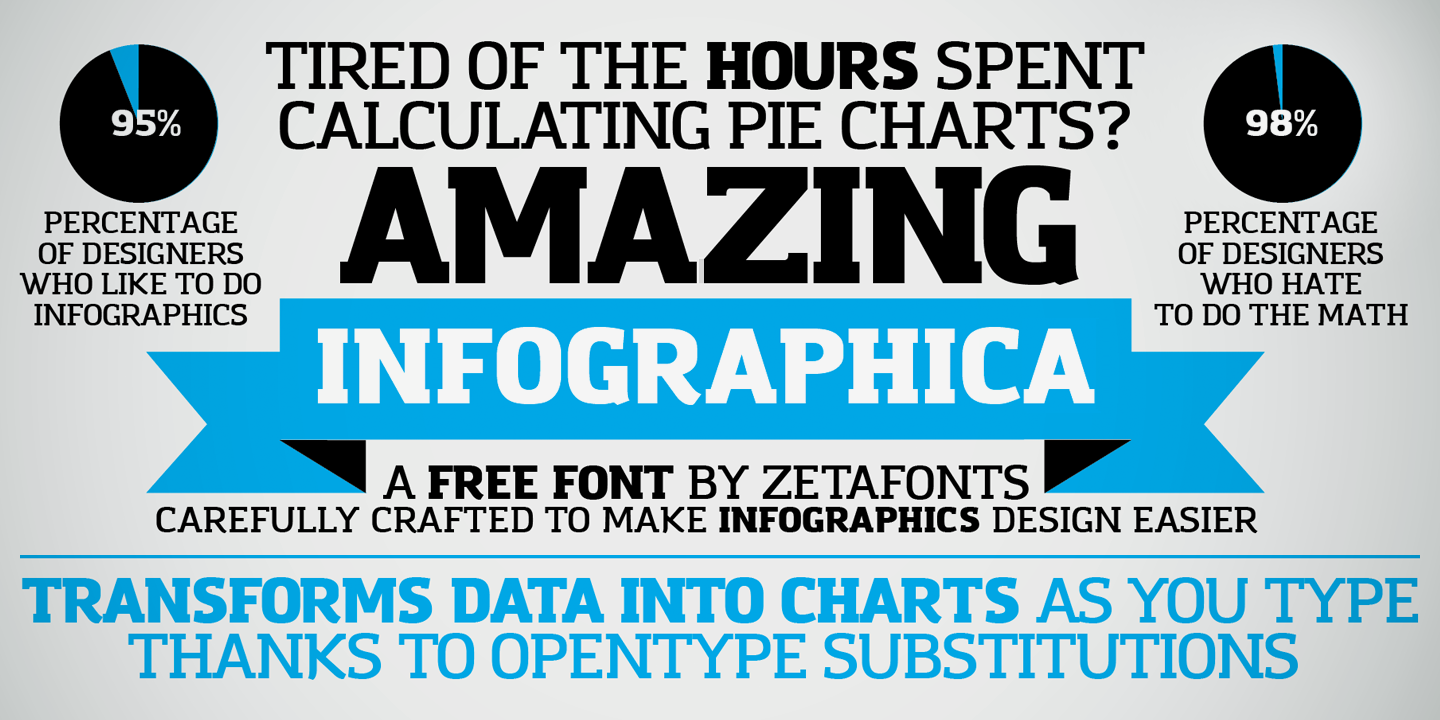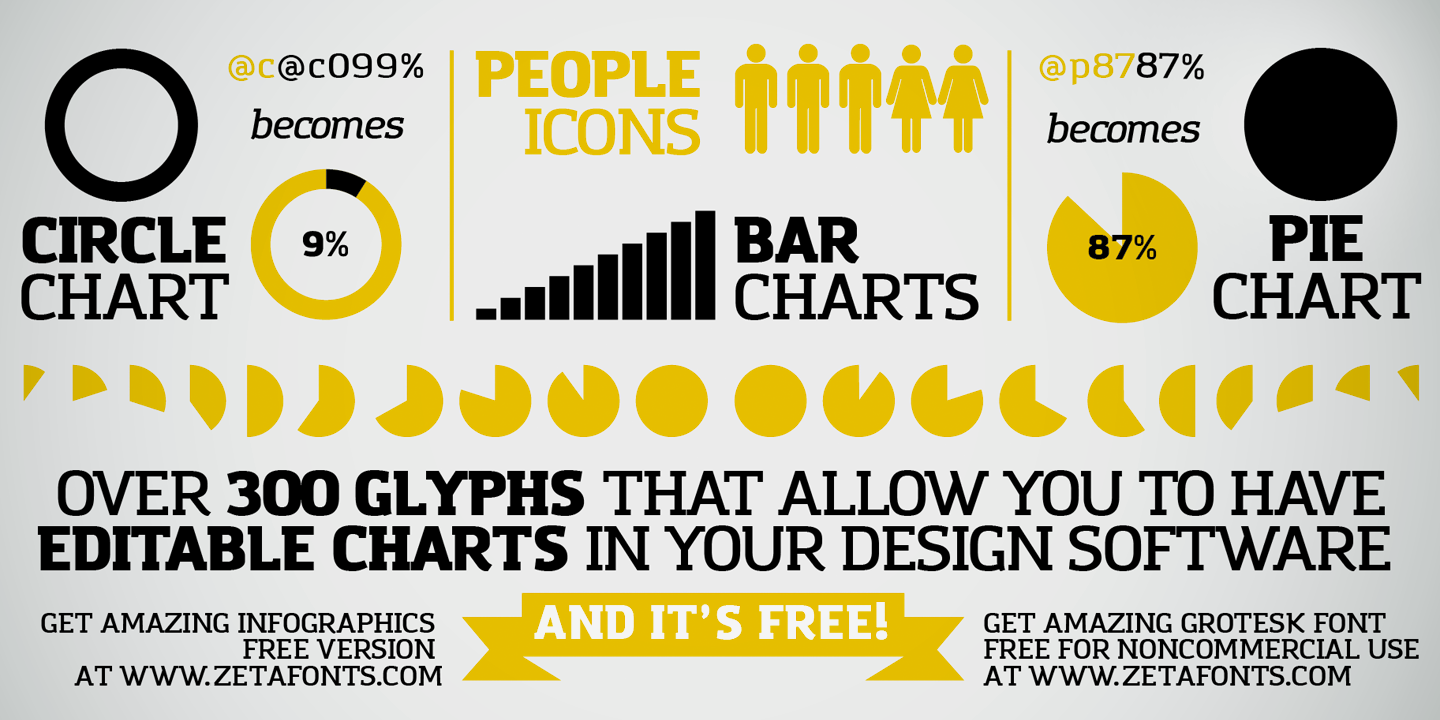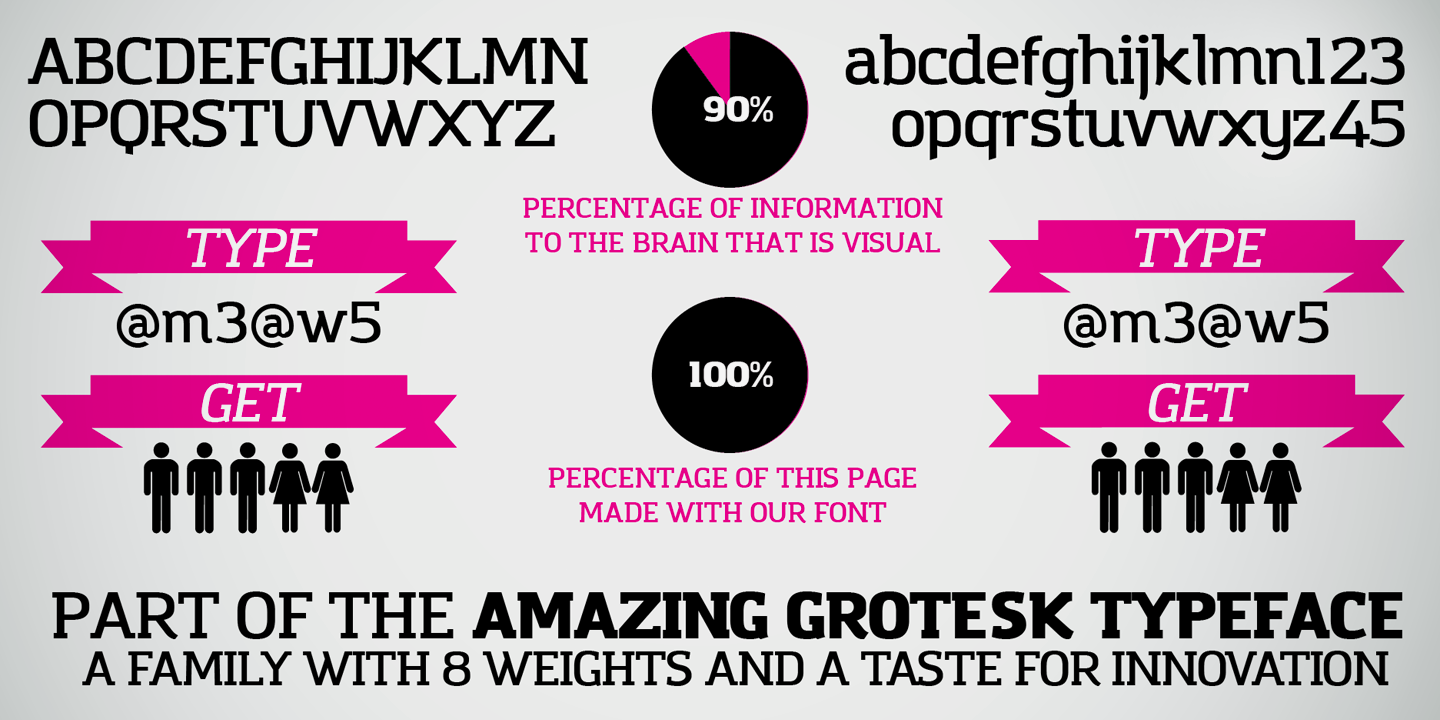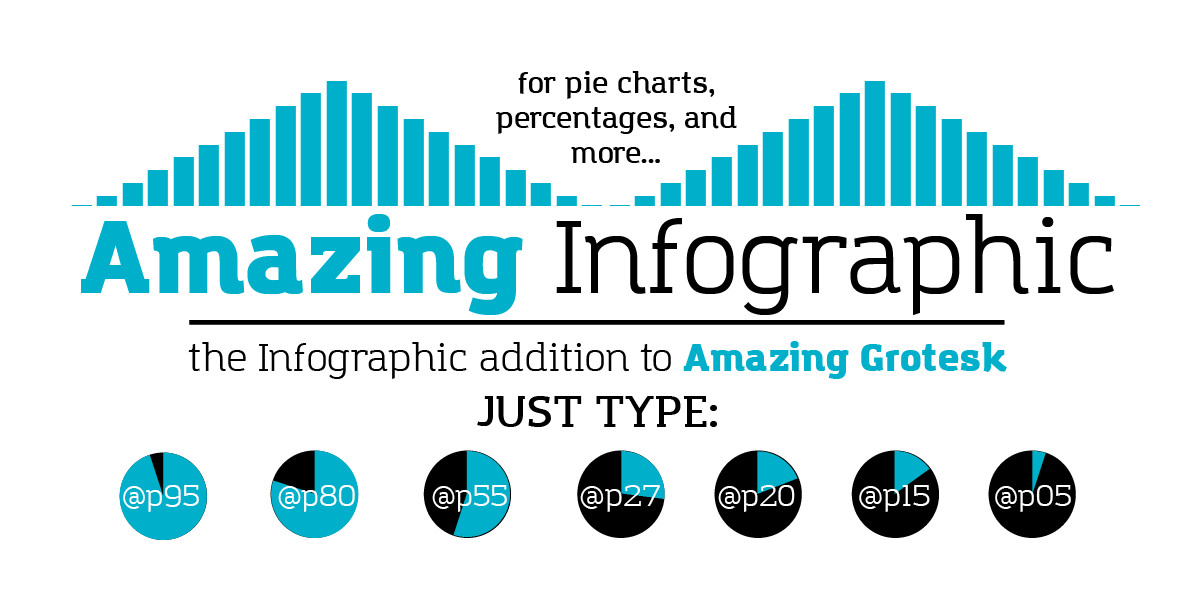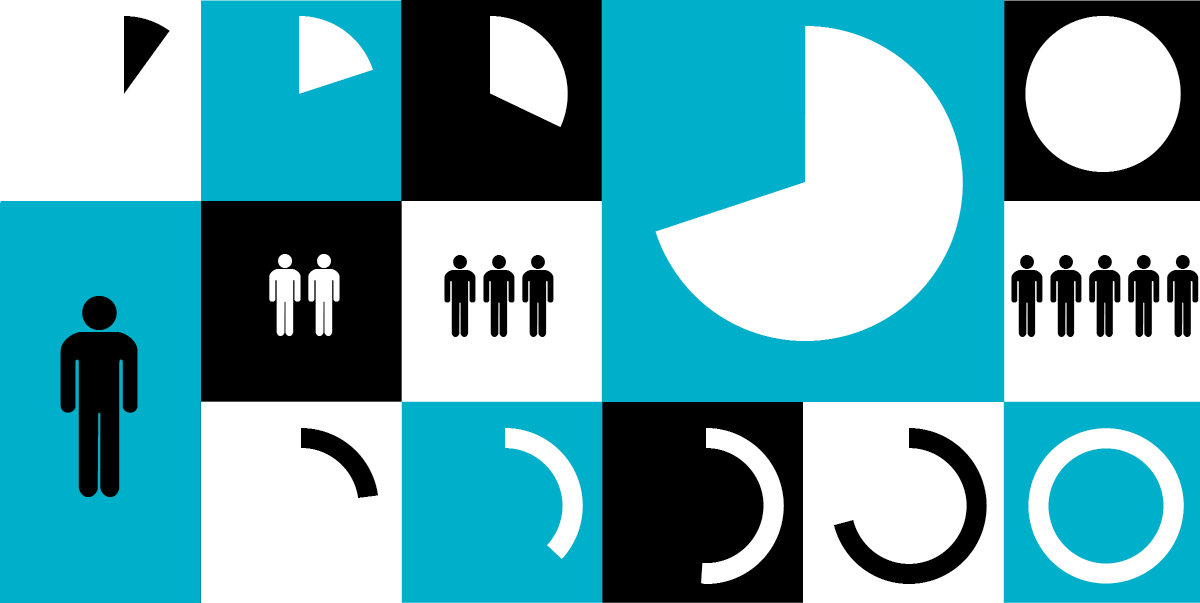
Tired of the hours spent calculating and drawing pie charts for your info graphics?
AMAZING INFOGRAPHICA allows you to TYPE DIRECTLY INFOGRAPHICS and CHARTS keeping them EDITABLE!
This completely FREE font TRANSFORMS DATA INTO CHARTS thanks to open type ligatures - try it and use it for all your commercial and noncommercial projects!
do you whant try a chart? use @a @b @c @p @ followd by a number!